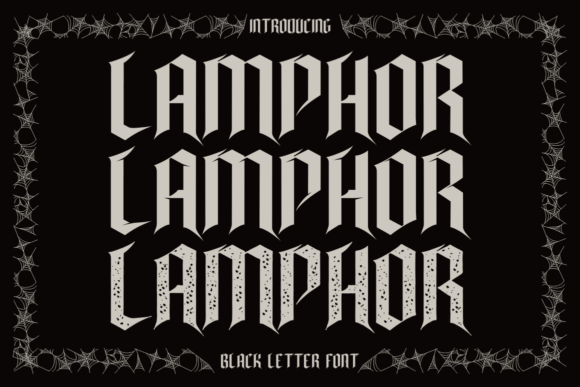
Looking to add a touch of darkness and mystery to your designs? Look no further than Lamphor Font, a captivating blackletter font that will leave a lasting impression.
With its sharp and pointed letterforms, Lamphor Font exudes an eerie and intimidating aura, making it the perfect choice for gothic or horror-themed designs. Whether you're working on a spooky poster, a sinister logo, or a chilling album cover, Lamphor Font will bring your vision to life with its menacing vibe.
But Lamphor Font doesn't stop there. It offers three distinct versions: regular, display, and texture, giving you the freedom to experiment and create unique designs in various contexts. From elegant certificates to captivating book titles, Lamphor Font is the ideal font for any project that demands attention and a touch of darkness.
Created by putracetol, Lamphor Font has quickly become a favorite among designers in heavy music genres like black metal and death metal. Its bold and powerful presence perfectly complements the intensity and aggression of these music styles, making Lamphor Font the go-to choice for album covers, band logos, and music posters.
But don't limit yourself to just the world of music. Lamphor Font can also make a statement in other design realms. Its captivating and eye-catching nature will grab the attention of your audience, whether you're creating captivating headlines, attention-grabbing titles, or captivating posters.